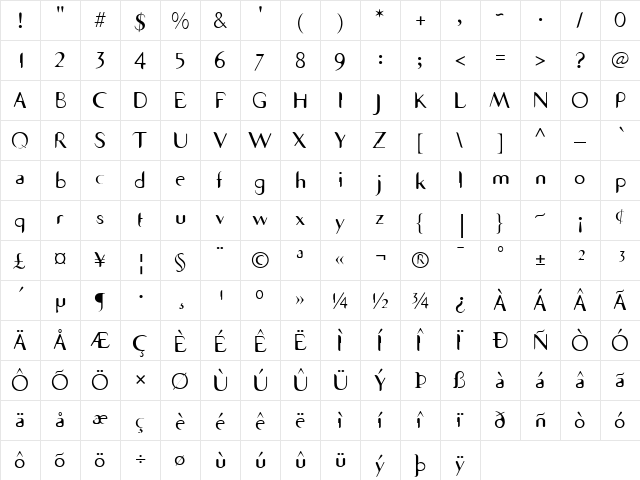
SevenSansICG Medium
Design Context for SevenSansICG Typeface
SevenSansICG takes a measured approach to typography — its balanced proportions and neutral character make it a reliable workhorse for both digital and print work.